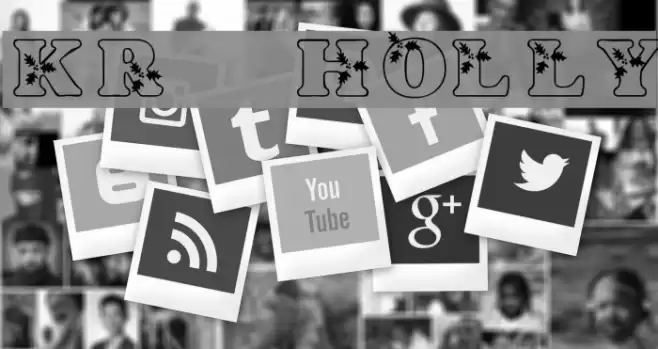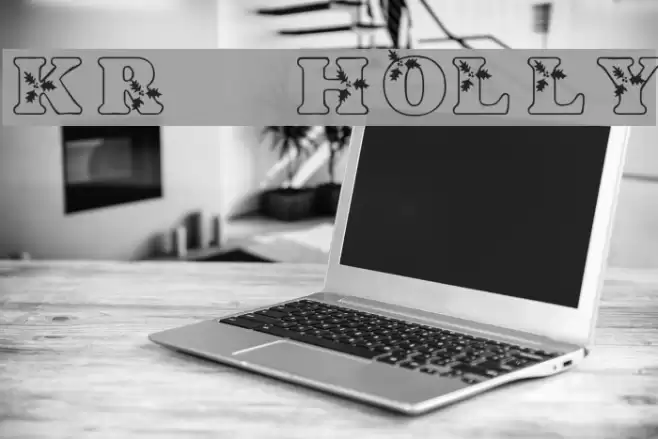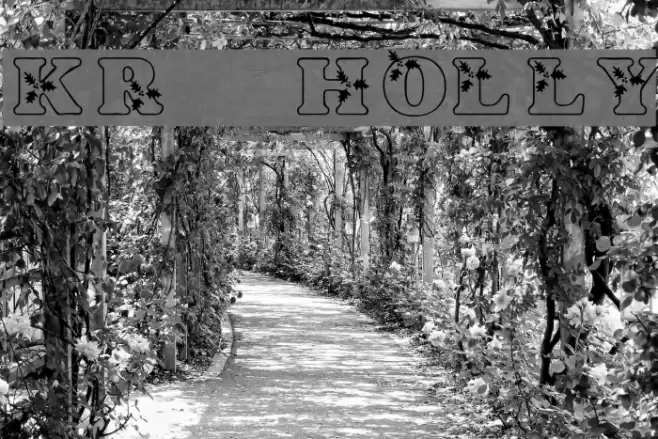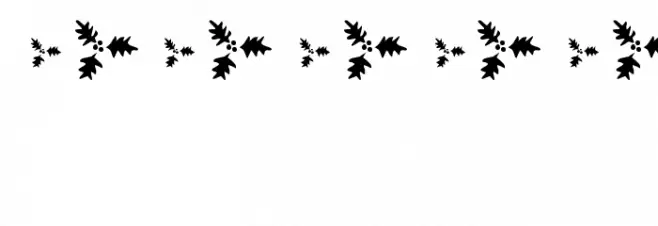
KR Holly Font
KR Holly Description
This decorative font features a unique design with holly leaf embellishments integrated into each letter. The uppercase letters are bold and outlined, with intricate holly patterns that add a festive and ornamental touch. The font lacks lowercase letters and numbers, focusing solely on uppercase characters and decorative elements. The holly motifs are consistent throughout, providing a cohesive and thematic appearance. This font is ideal for holiday-themed projects, offering a playful yet elegant style that stands out.
A decorative font with holly leaf embellishments on uppercase letters from Uncategorized fonts.